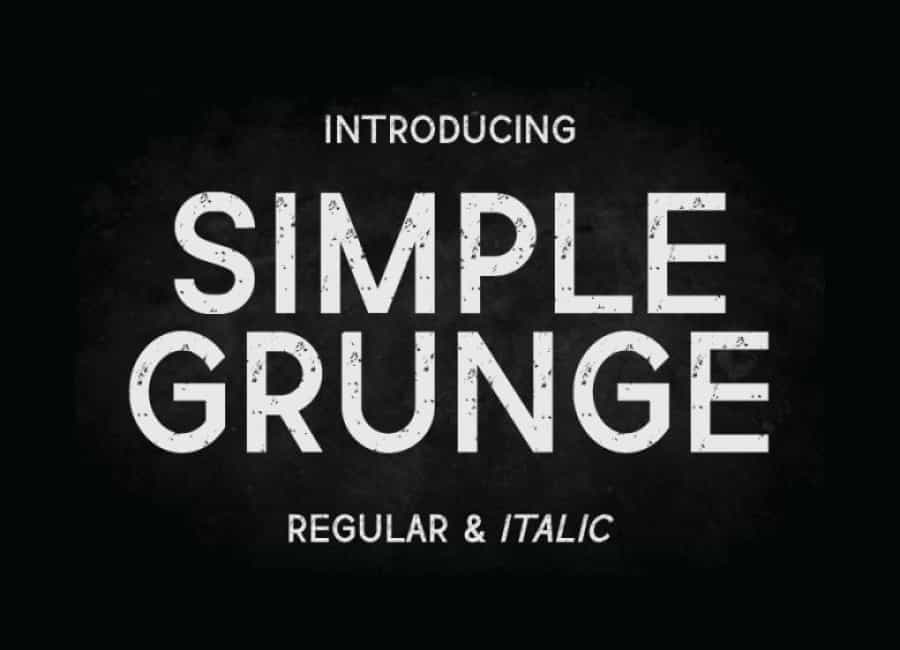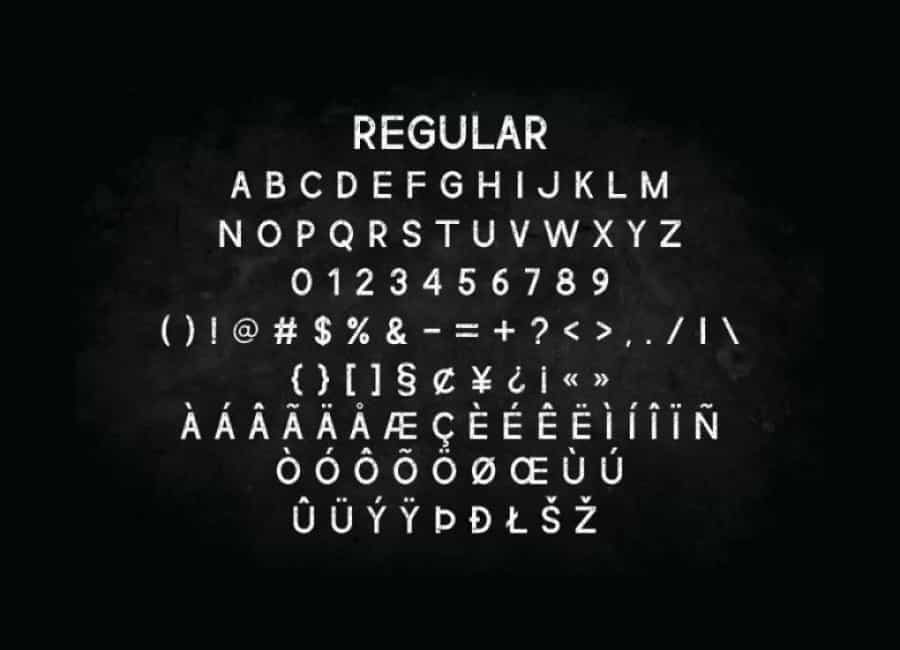
Simple Grunge is a grunge-style font with the perfect balance of coolness and individual style, helping your ideas come to life. Don’t hesitate to integrate this font into your projects – you will be astounded by its wonderful results!